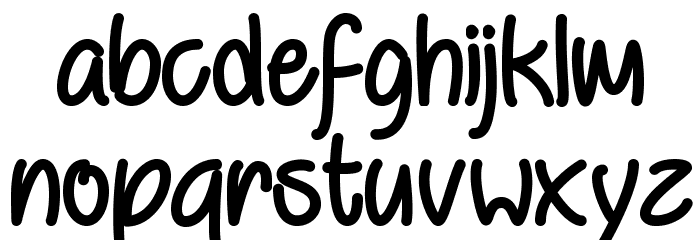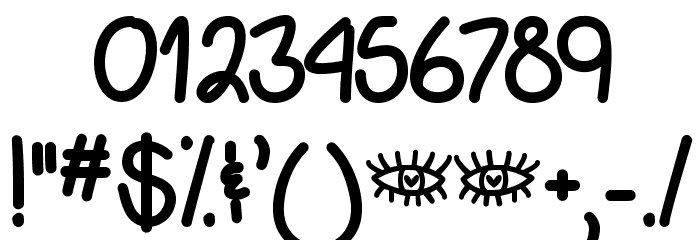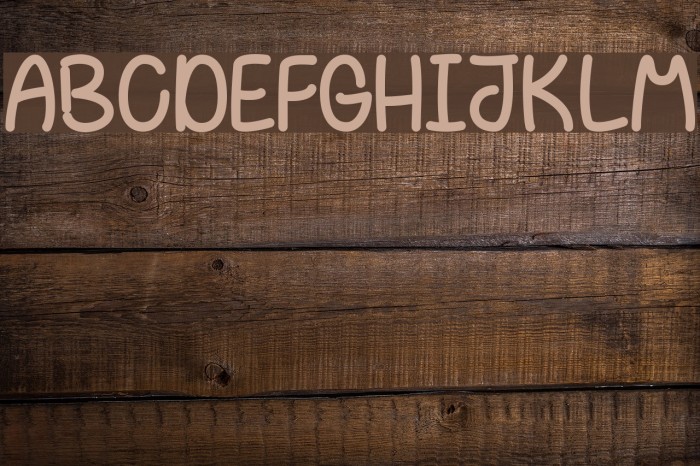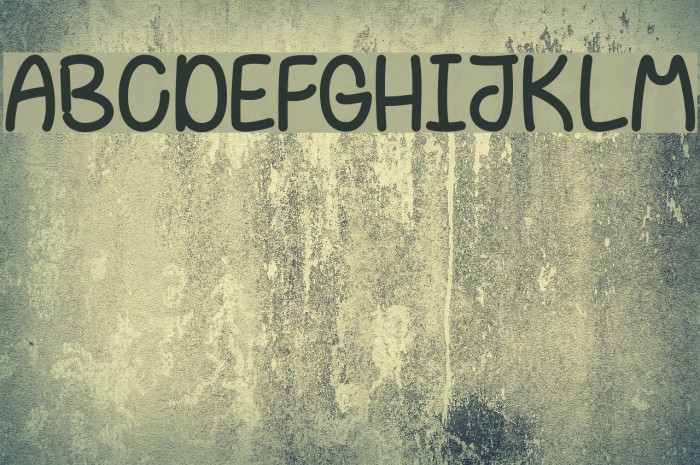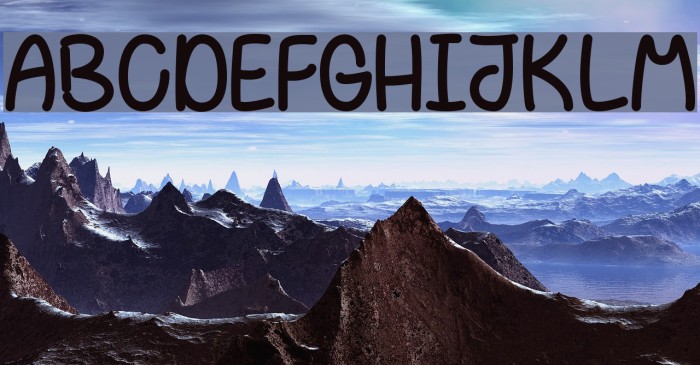
BehindVioletEyes Font
This playful and whimsical font features a handwritten style with smooth, rounded edges and a casual flow. The characters are slightly slanted, giving a dynamic and lively appearance. Uppercase letters are bold and prominent, while lowercase letters maintain a consistent size and style, enhancing readability. The numbers are clear and distinct, matching the overall playful theme. Special characters are creatively designed, adding a unique touch to the font's personality. This font exudes a friendly and approachable vibe, making it suitable for a variety of creative projects.
A playful, handwritten font with smooth, rounded edges and a casual, dynamic style.
- Proposed Projects: Ideal for children's books, greeting cards, playful branding, and social media graphics.
- Overall Style: Playful
- Use Case: Logos, Headlines, Informal Text